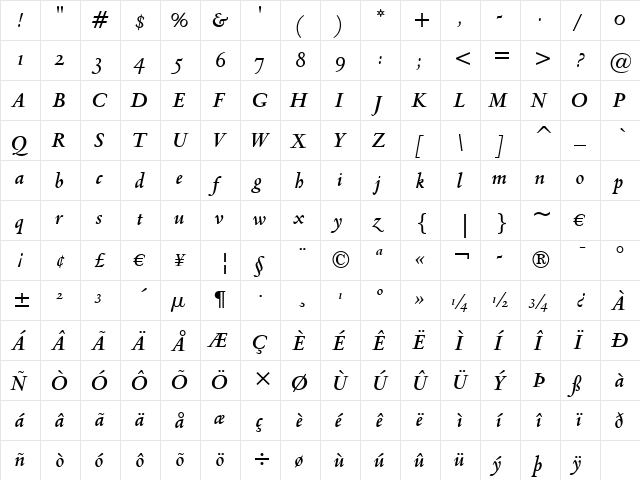
Venetian301 Bd BT Bold Italic
Design Context for Venetian301 Bd BT Typeface
Venetian301 Bd BT offers clean, dependable letterforms without strong stylistic allegiance, making it a practical choice for designers who need flexibility. Its italic angle brings a sense of urgency and motion to the letterforms. The heavy weight commands attention and anchors typographic hierarchies.
Pro Tip: Use Venetian301 Bd BT for emphasis, pull quotes, and subheadings where its slanted energy can add rhythm to the layout.